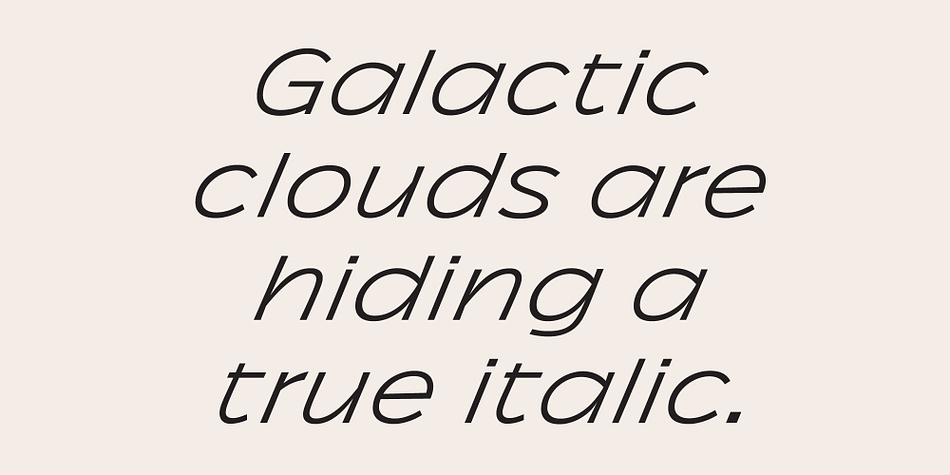
Naoko AA
Designed by Émilie Rigaud, Naoko AA is a sans serif font family. This typeface has fourteen styles and was published by A is for...
Naoko is a sans serif typeface family in 7 weights. The name comes from “Naoko Yamazaki”, the second Japanese woman to become an astronaut.
Its design relies on wide proportions, very short ascenders and light diacritics on all weights. It comes with a stylistic set of light punctuation, and an alternative g. Some Japanese symbols are even hidden in its character set.
Designer Émilie Rigaud